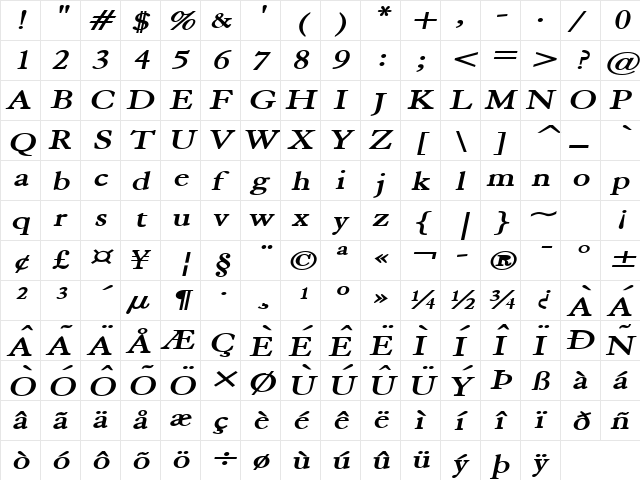
Elephant Extended BoldItalic
Design Context for Elephant Extended
Elephant Extended is a composed and adaptable typeface that performs quietly and consistently across a wide range of design contexts. The slanted form adds forward momentum and visual energy. Its bold stroke weight gives it real presence on the page.
Pro Tip: Use Elephant Extended for emphasis, pull quotes, and subheadings where its slanted energy can add rhythm to the layout.